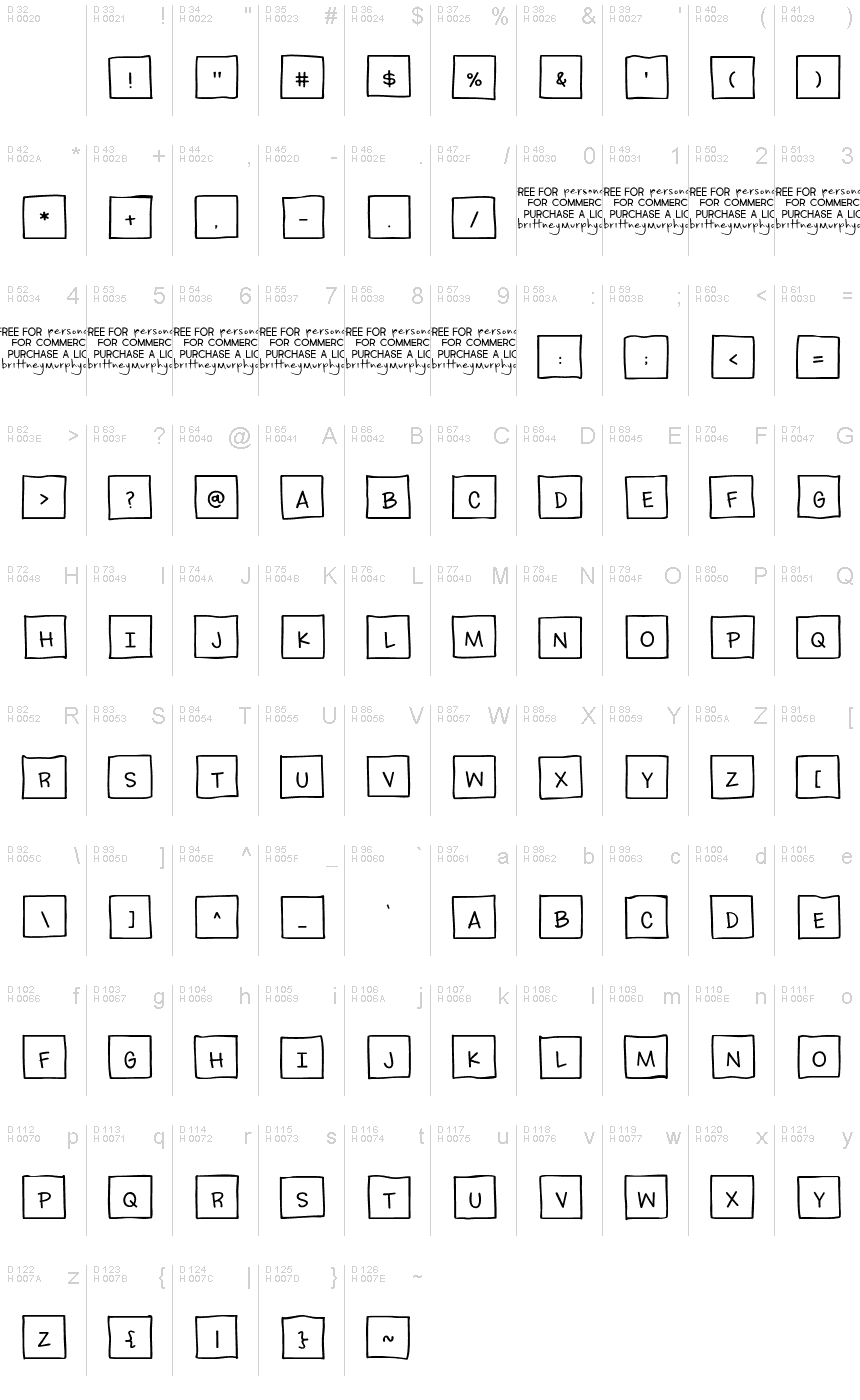
Sticky Memos Demo Plain
Introducing Sticky Memos Plain, the perfect font for when you need to add a touch of whimsy to your designs. With its decorative style and light weight, this display font is ideal for playful projects such as greeting cards, invitations, and social media graphics. Created by Brittney Murphy Design as part of the Sticky Memos font family, this typeface will bring a cheerful and fun vibe to any design project. Whether you're designing for kids or just want to inject some lightheartedness into your work, Sticky Memos Plain is the perfect choice.
The Sticky Memos font family is a cute sticky note font in three styles: regular (sticky notes with tape), two (sticky notes with tape filled in), and plain (sticky notes with no tape). Use it to add some fun to your worksheets and planners!
Font contains over 300 characters and supports most Latin-based languages.